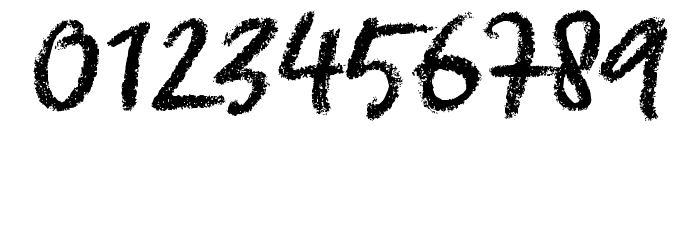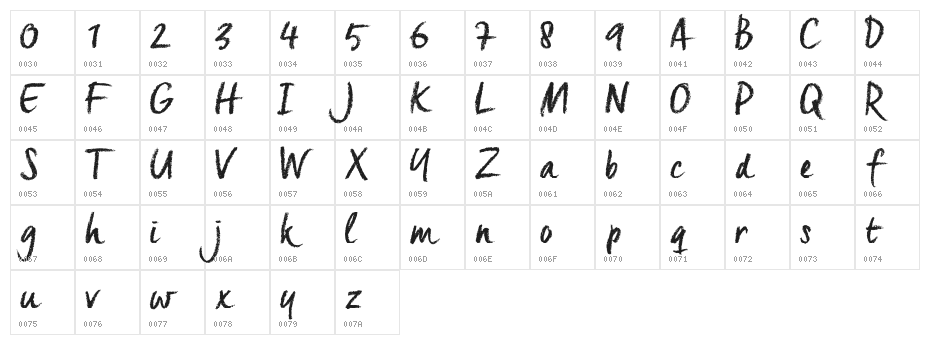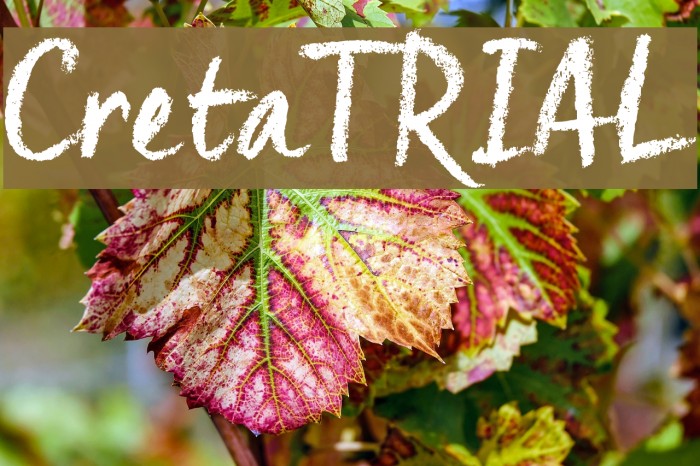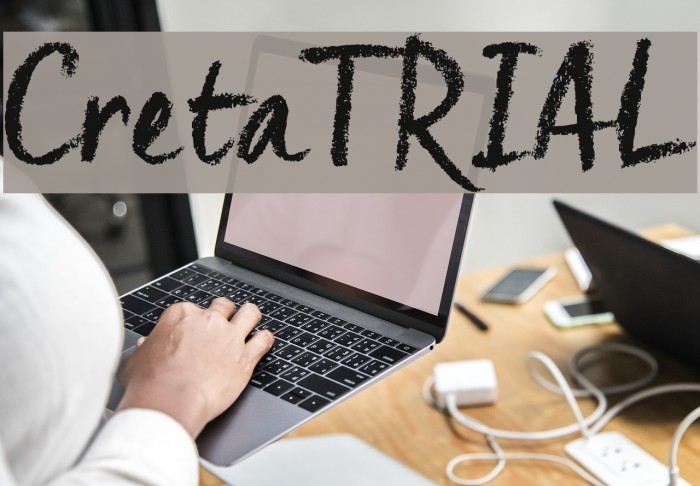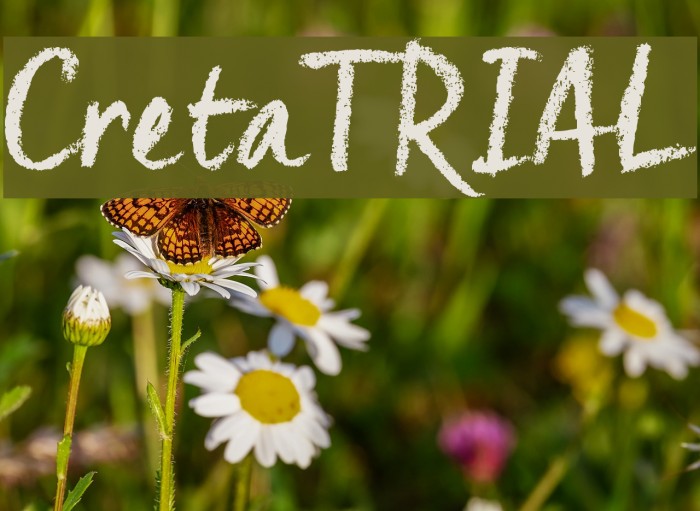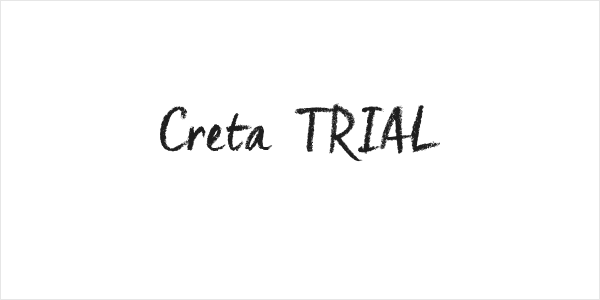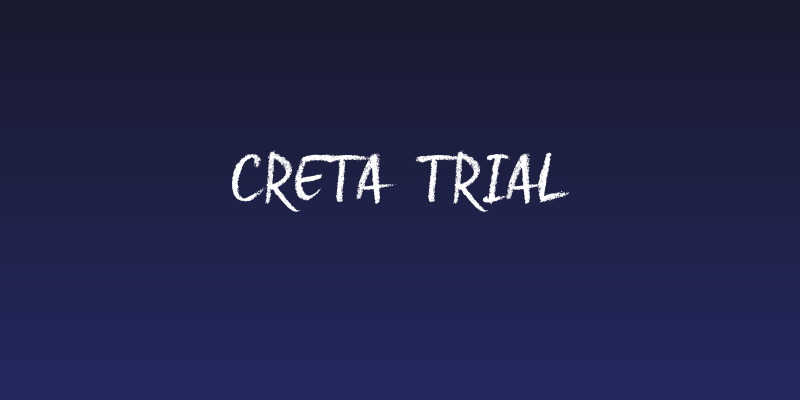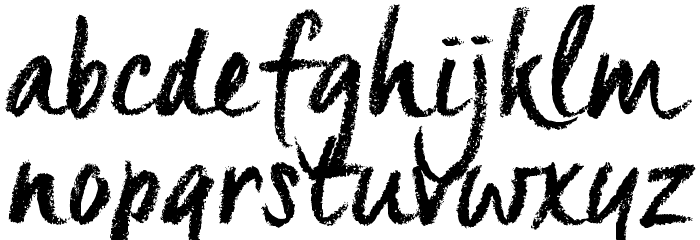
Creta_TRIAL Font
Creta_TRIAL Description
This font exhibits a dynamic and textured brush style, characterized by its rough, hand-painted appearance. The letters are bold and expressive, with a natural flow that mimics the strokes of a paintbrush. The uppercase and lowercase letters maintain a consistent style, while the numbers and special characters integrate seamlessly with the overall design. The texture adds a sense of depth and movement, making it ideal for projects that require a personal and artistic touch.
| Proposed Projects | Ideal for artistic projects, posters, branding, and any design requiring a bold, expressive touch. |